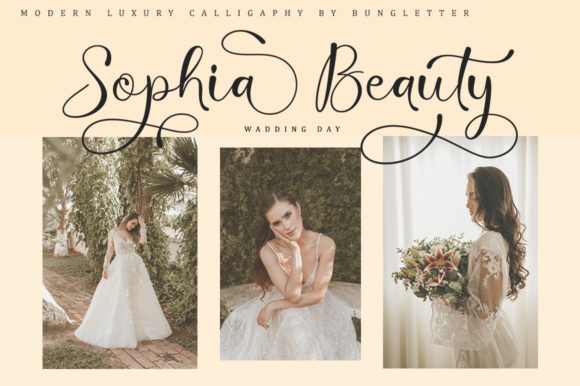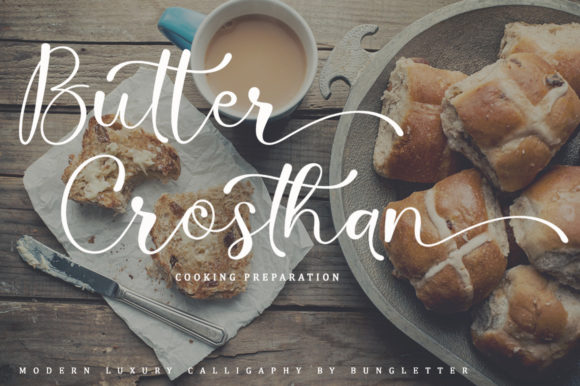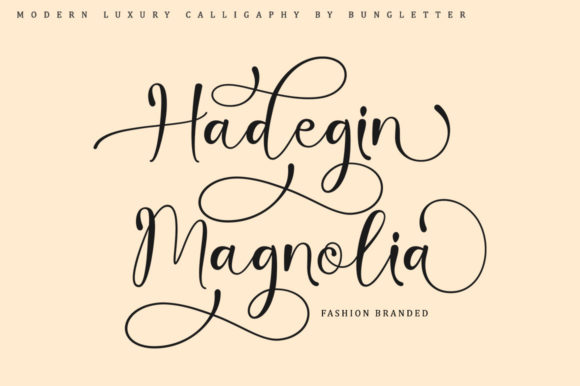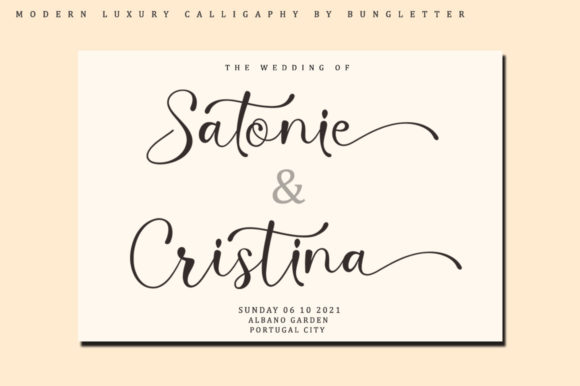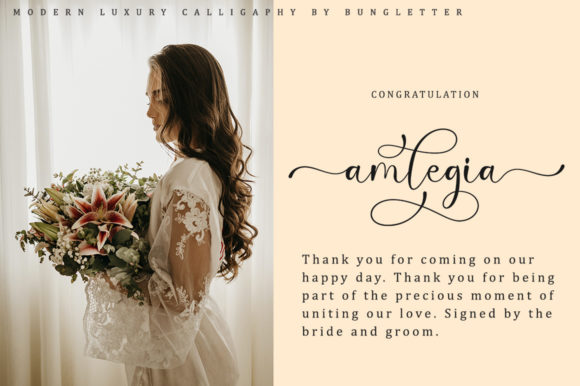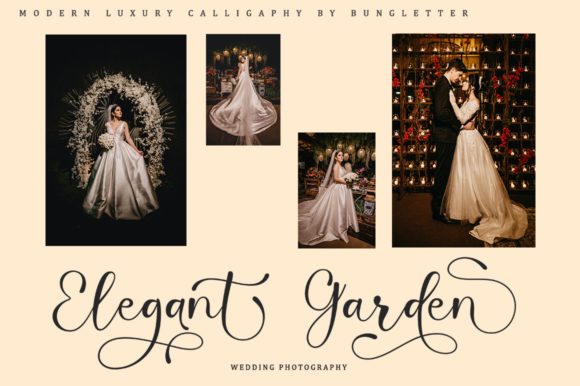
Introducing Haythen Maglley Font: The Epitome of Modern Luxury Script Fonts
In the realm of typography, a well-crafted font can elevate a design from ordinary to extraordinary. For designers and crafters seeking a typeface that exudes elegance, sophistication, and a touch of modernity, Haythen Maglley Font is an exceptional choice. This modern luxury script font has been meticulously designed to offer a beautiful character and vibe, making it perfect for a wide range of creative projects.
What Makes Haythen Maglley Stand Out?
Haythen Maglley is interesting because the typeface is pleasing to the eye, clean, glamorous, simple, and very easy to read. These characteristics make it an ideal font for designers who aim to create visually stunning and easily legible content. Whether you’re working on a branding project, crafting a luxurious invitation, or designing a sophisticated advertisement, Haythen Maglley ensures that your message is conveyed with style and clarity.
PUA Encoding for Easy Access to Glyphs and Swashes
One of the standout features of Haythen Maglley Font is its PUA (Private Use Area) encoding. This means that users can access all of the glyphs and swashes with ease, offering unparalleled flexibility and creativity in design. The inclusion of PUA encoding allows designers to explore a wide range of typographic variations, enabling them to add unique touches to their work without the hassle of complicated font management.
Versatility and Application
The versatility of Haythen Maglley Font makes it suitable for a myriad of applications. From high-end branding and packaging to elegant stationery and digital media, this font can adapt to various design needs. Its clean and simple design ensures that it pairs well with a range of other typefaces, providing endless possibilities for creative combinations.
- Ease of Use: Haythen Maglley Font is designed to be user-friendly. Its PUA encoding and clear structure make it easy to incorporate into any design project, saving designers time and effort.
- Aesthetic Appeal: With its glamorous and modern look, Haythen Maglley adds a touch of luxury to any design, helping projects stand out in a crowded digital landscape.
- Readability: The font’s clean and simple design ensures high readability, making it perfect for both digital and print media.
- Customization: The availability of glyphs and swashes allows designers to customize their work extensively, enabling them to match the font perfectly to their project’s tone and style.
How to Use Haythen Maglley Font Effectively
Haythen Maglley Font is a remarkable addition to the world of typography, offering designers and crafters a tool that combines modern luxury with practicality. Its beautiful character, ease of use, and versatility make it an excellent choice for anyone looking to elevate their design work. Whether you’re creating a brand identity, crafting invitations, or designing advertisements, Haythen Maglley Font provides the perfect blend of style, readability, and creativity.